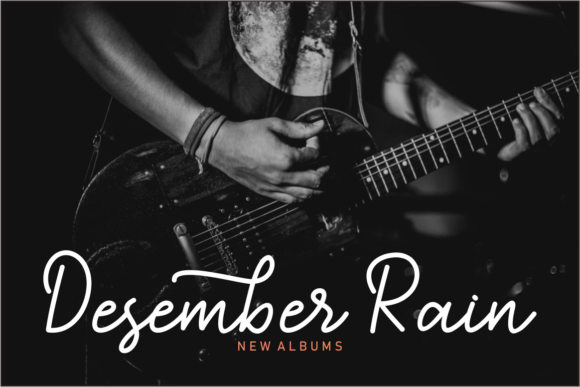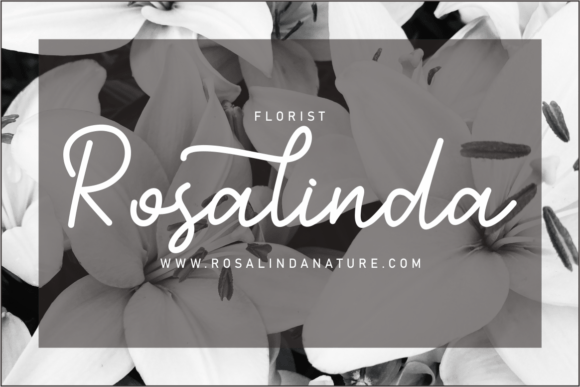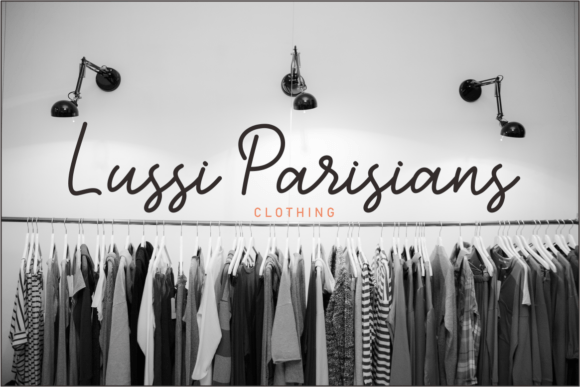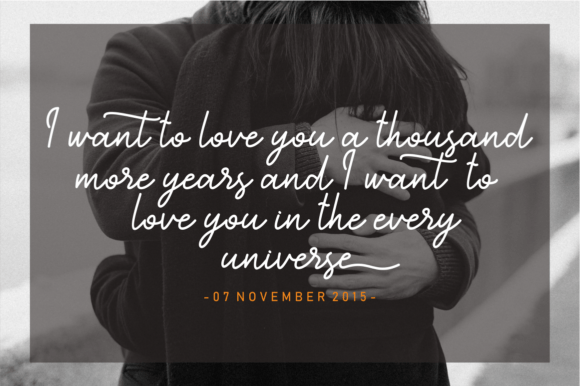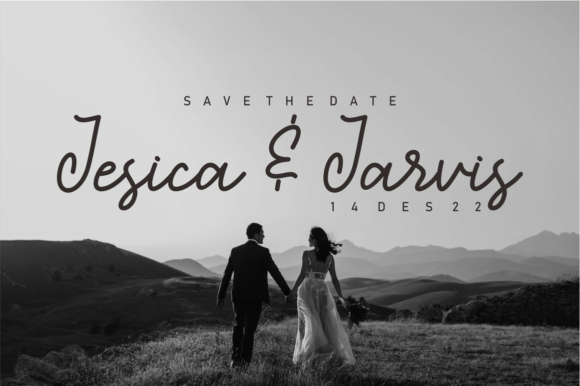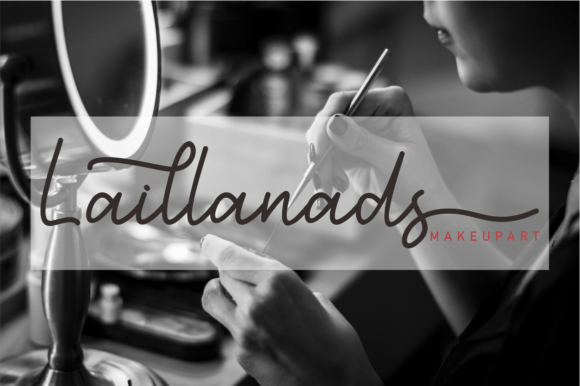
Introducing Amsterdoom Font: Elevate Your Designs with Elegance and Versatility
Are you on the hunt for a font that exudes elegance, sophistication, and versatility? Look no further than Amsterdoom Font! This delicate and charming handwritten font is perfect for designers and crafters seeking to add a touch of refinement to their creations. With its wide range of applications and user-friendly features, Amsterdoom Font is sure to become your go-to choice for all your design needs.
The Perfect Blend of Delicacy and Elegance
Amsterdoom Font boasts a delicate and elegant handwritten style that is sure to captivate your audience. Its incredibly versatile design makes it suitable for a wide range of applications, from logos and branding to social media posts and product packaging. Whether you’re a seasoned designer or a crafty DIY enthusiast, Amsterdoom Font is the perfect choice for anyone looking to add a touch of sophistication to their designs.
So, what can you create with Amsterdoom Font? The possibilities are endless! Here are just a few ideas to get you started:
- Titles and Headings: Add a touch of elegance to your titles and headings, making them perfect for magazines, websites, and social media posts.
- Social Media Posts: Elevate your social media game with eye-catching posts that feature Amsterdoom Font’s delicate and elegant style.
- Product Packaging: Make your products stand out with custom packaging that features Amsterdoom Font’s charming design.
- Labels and Watermarks: Add a touch of sophistication to your labels and watermarks, perfect for photographers, crafters, and small business owners.
One of the best features of Amsterdoom Font is its PUA (Private Use Area) encoding. This means that you can access all of the amazing glyphs and ligatures with ease, giving you even more creative freedom to experiment with different designs. With PUA encoding, you can:
- Access a wide range of glyphs: Unlock a vast library of glyphs and ligatures to add a unique touch to your designs.
- Create custom ligatures: Combine glyphs to create custom ligatures that reflect your brand’s personality and style.
- Experiment with different designs: With easy access to glyphs and ligatures, you can experiment with different design ideas and explore new creative possibilities.
Amsterdoom Font is designed with both designers and crafters in mind. Whether you’re a seasoned professional or a DIY enthusiast, this font is perfect for:
- Graphic designers: Add a touch of elegance to your designs and take your clients’ branding to the next level.
- Photographers: Create stunning watermarks and add a touch of sophistication to your photos.
- Crafters: Make your DIY projects stand out with custom labels, packaging, and designs that feature Amsterdoom Font.
- Small business owners: Elevate your brand’s image with custom logos, branding, and marketing materials that feature Amsterdoom Font.
In conclusion, Amsterdoom Font is a delicate and elegant handwritten font that is perfect for designers and crafters seeking to add a touch of sophistication to their creations. With its versatile design, PUA encoding, and wide range of applications, Amsterdoom Font is sure to become your go-to choice for all your design needs. So why wait? Fall in love with Amsterdoom Font and take your designs to the next level!